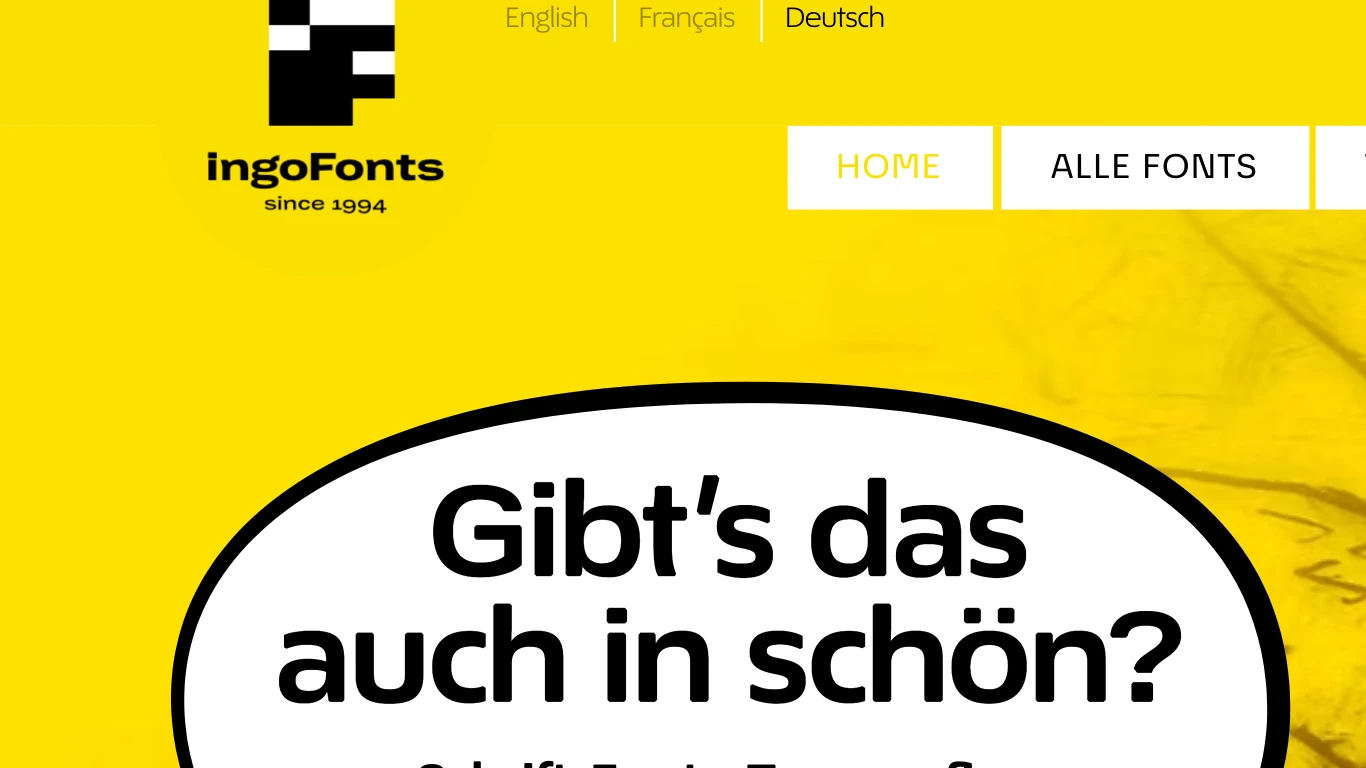
IngoFonts
Germany
1994
​IngoFonts is an independent type foundry established in 1994 by Ingo Zimmermann, a professional type designer based in Augsburg, Germany. The foundry offers a diverse range of typefaces, spanning from classical to modern styles, including script fonts, revivals of historic typefaces, Romans, sans serifs, and decorative fonts. Notable typefaces from IngoFonts include Absolut Pro (a versatile modern sans serif), Biró Script (a popular expressive script), and Maier's Nr.8 (a distinctive design showcasing typographic variety).